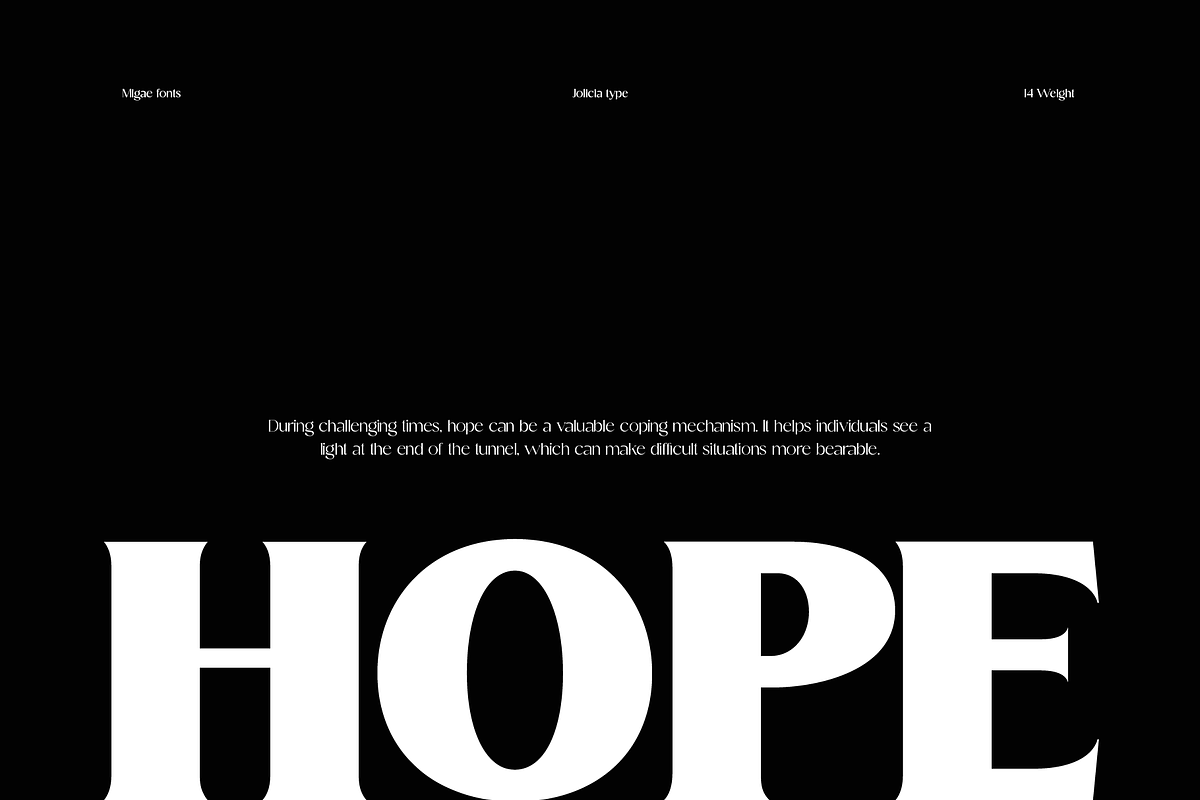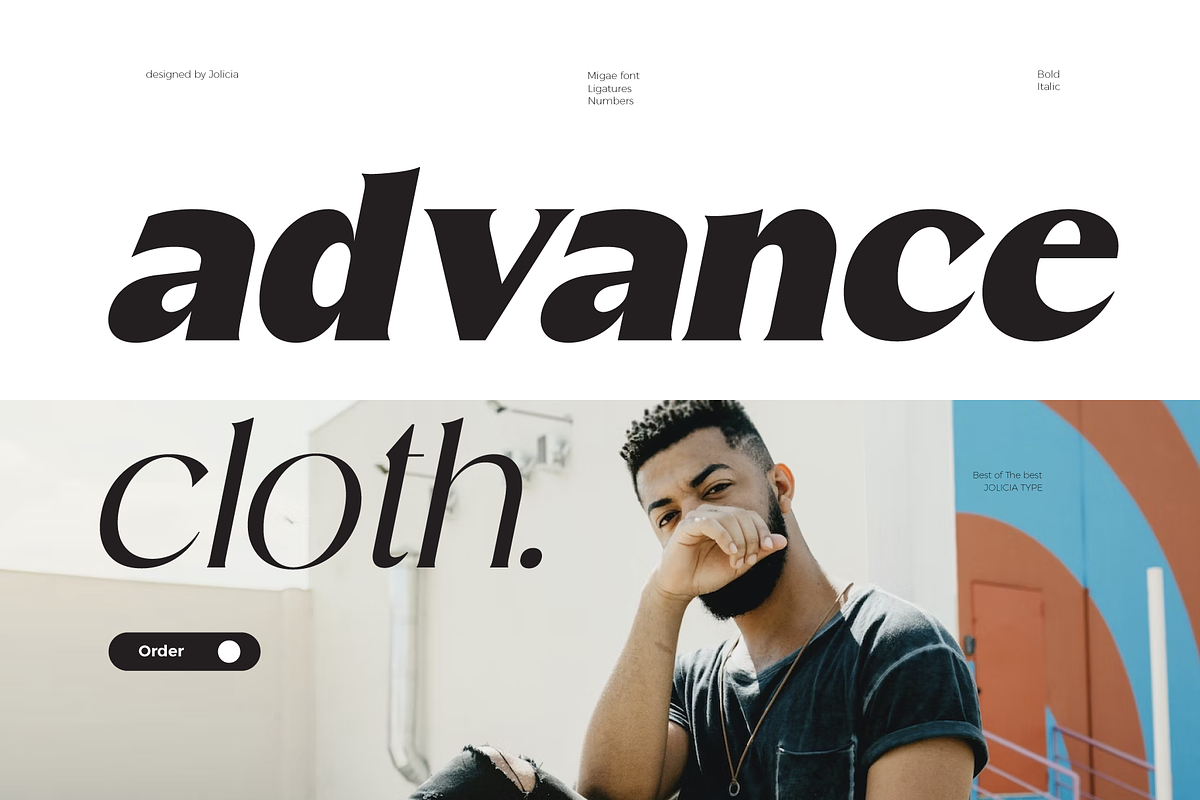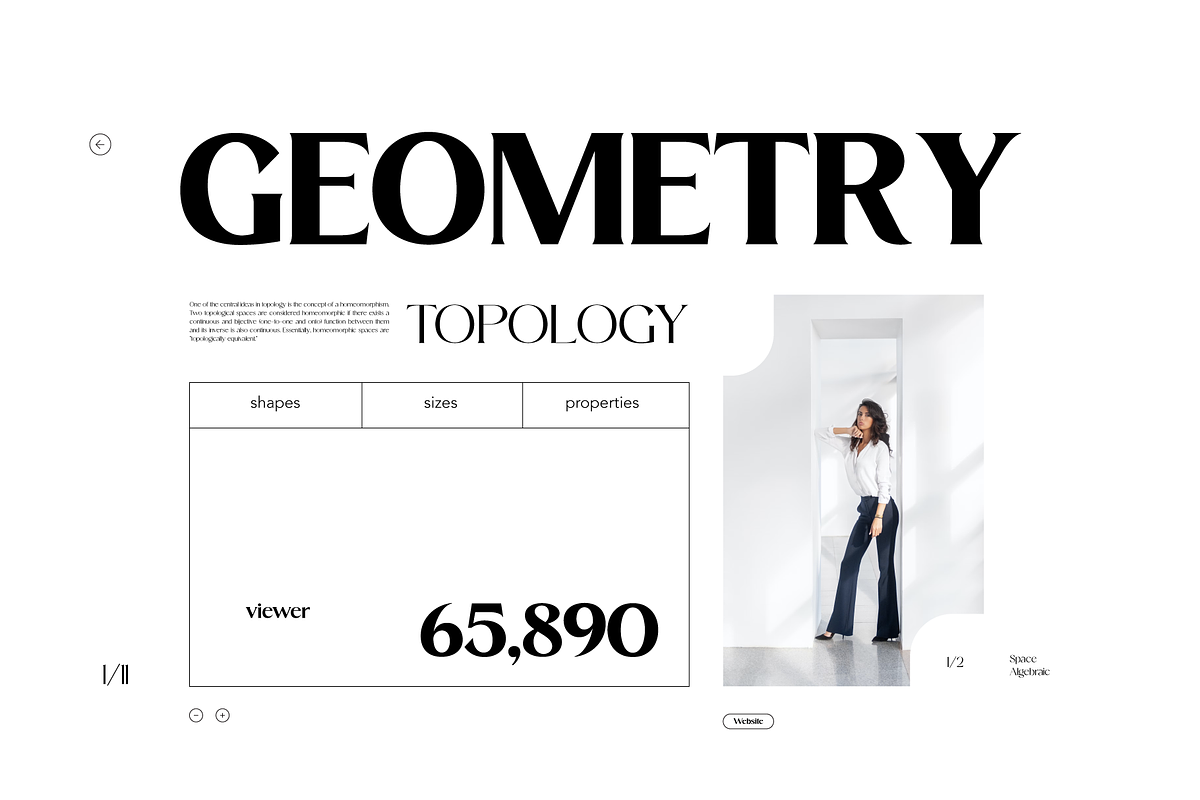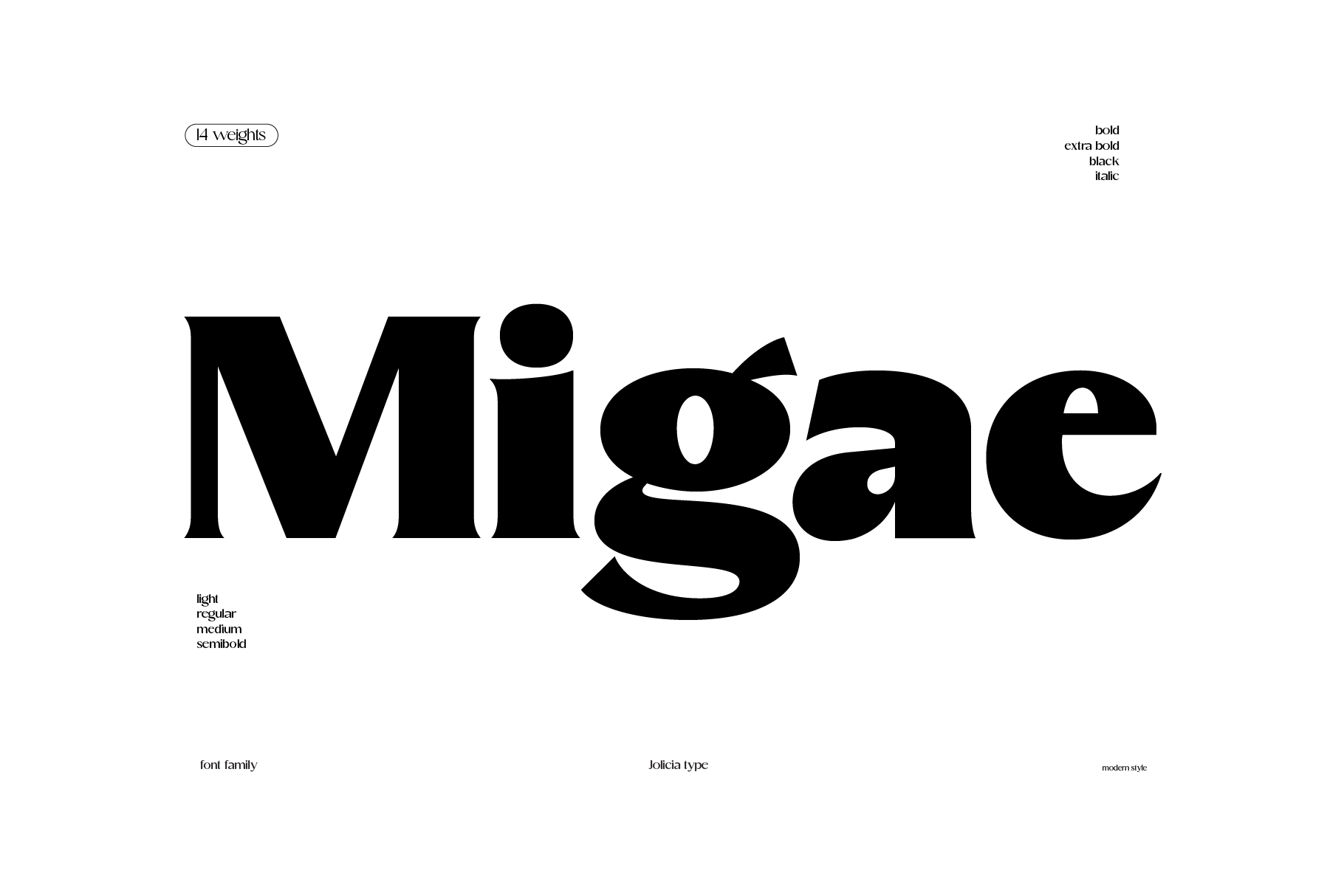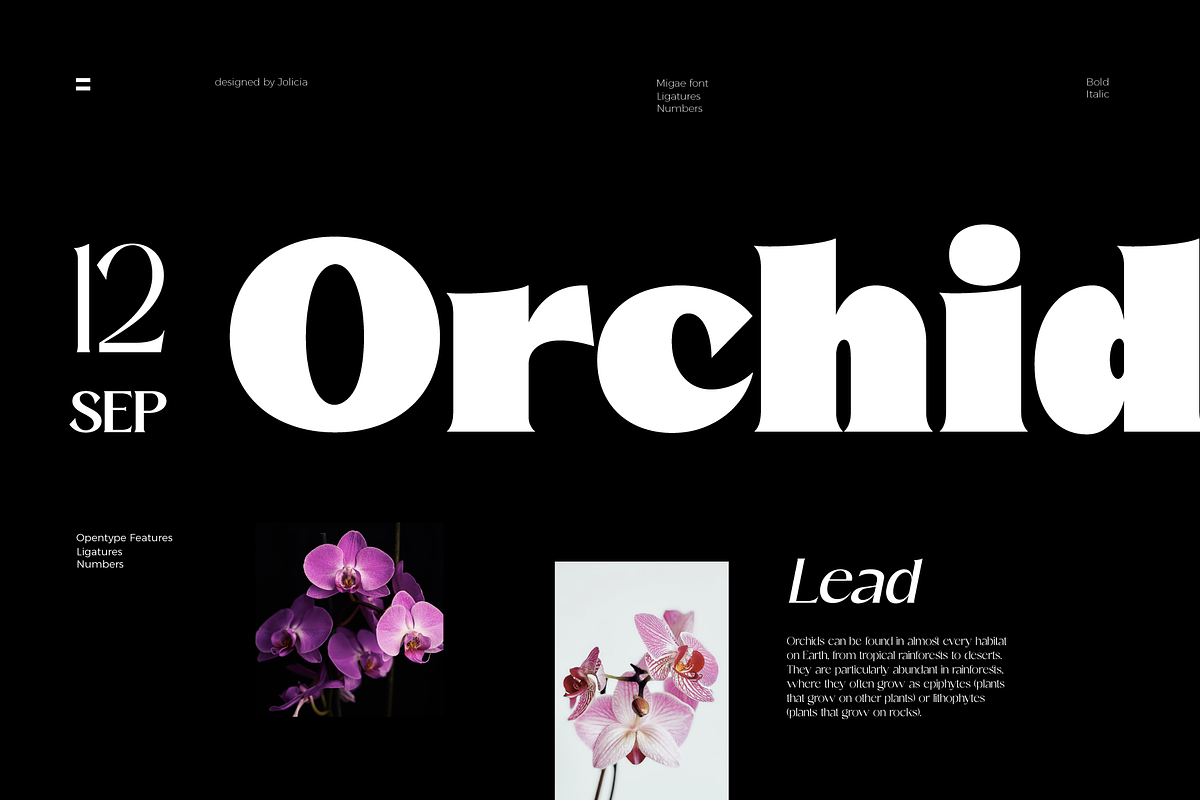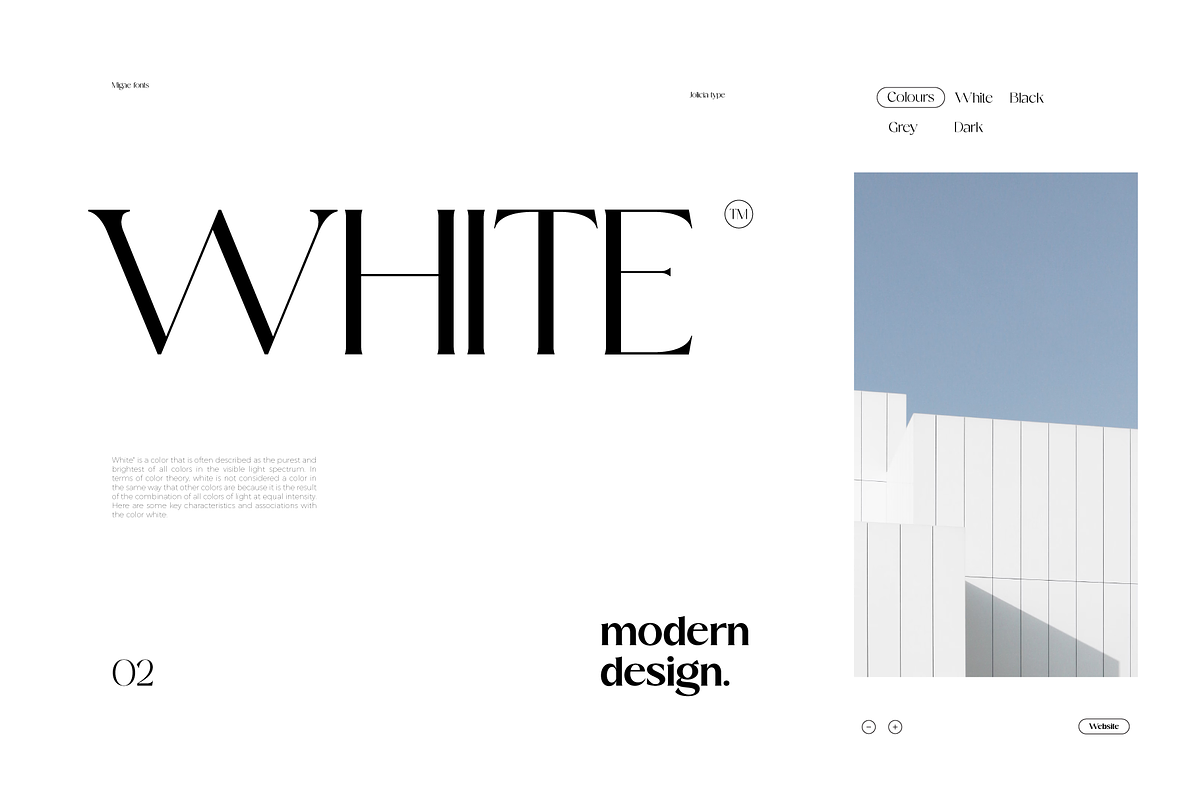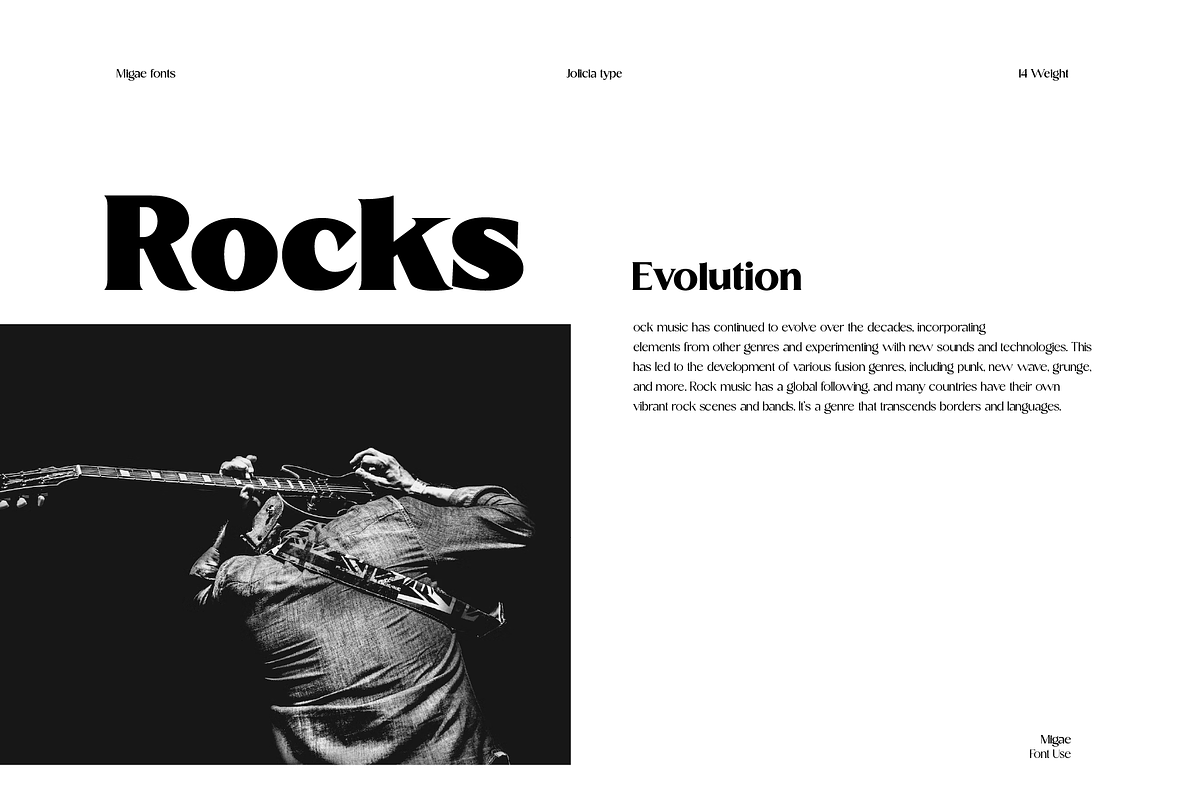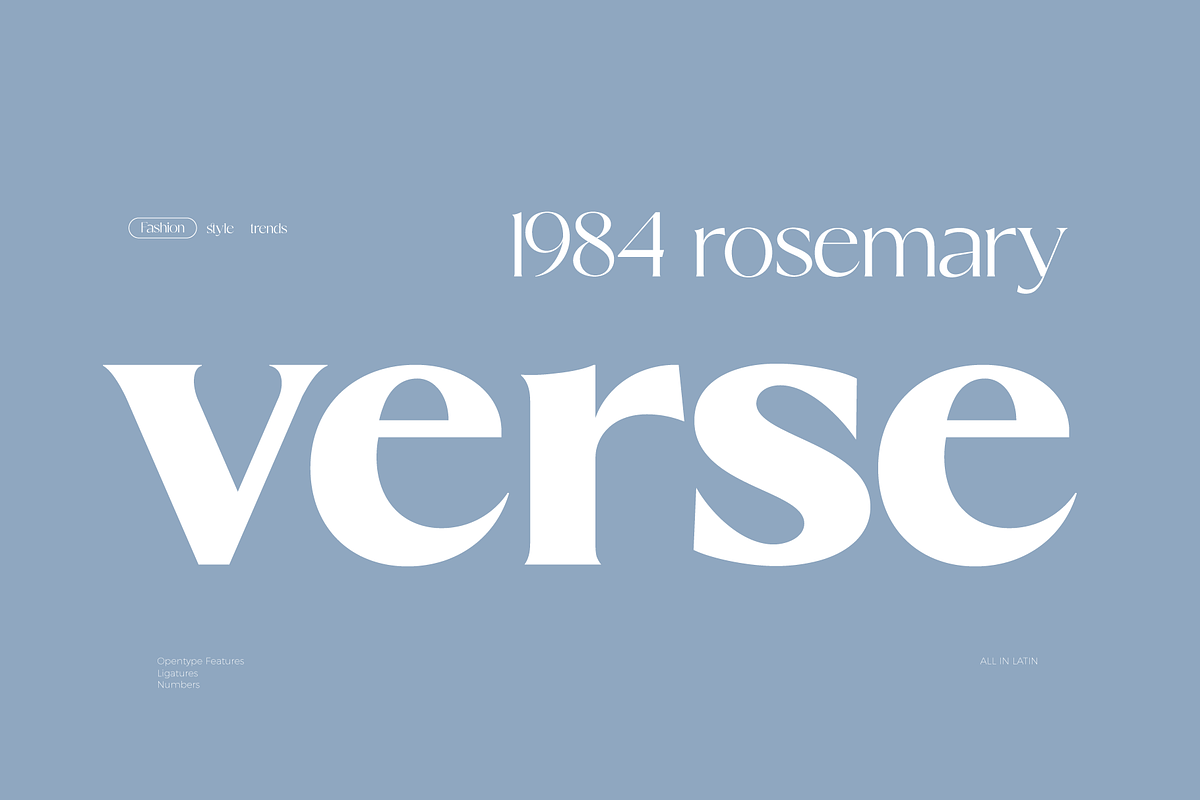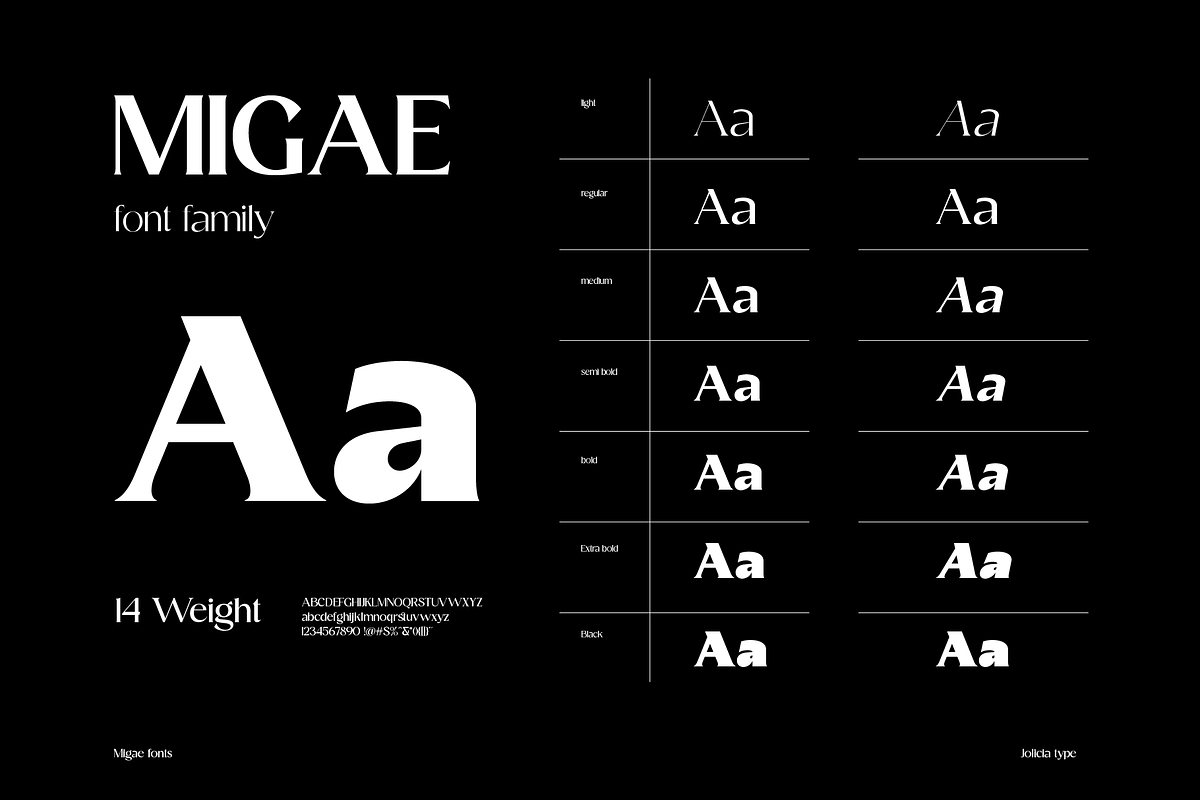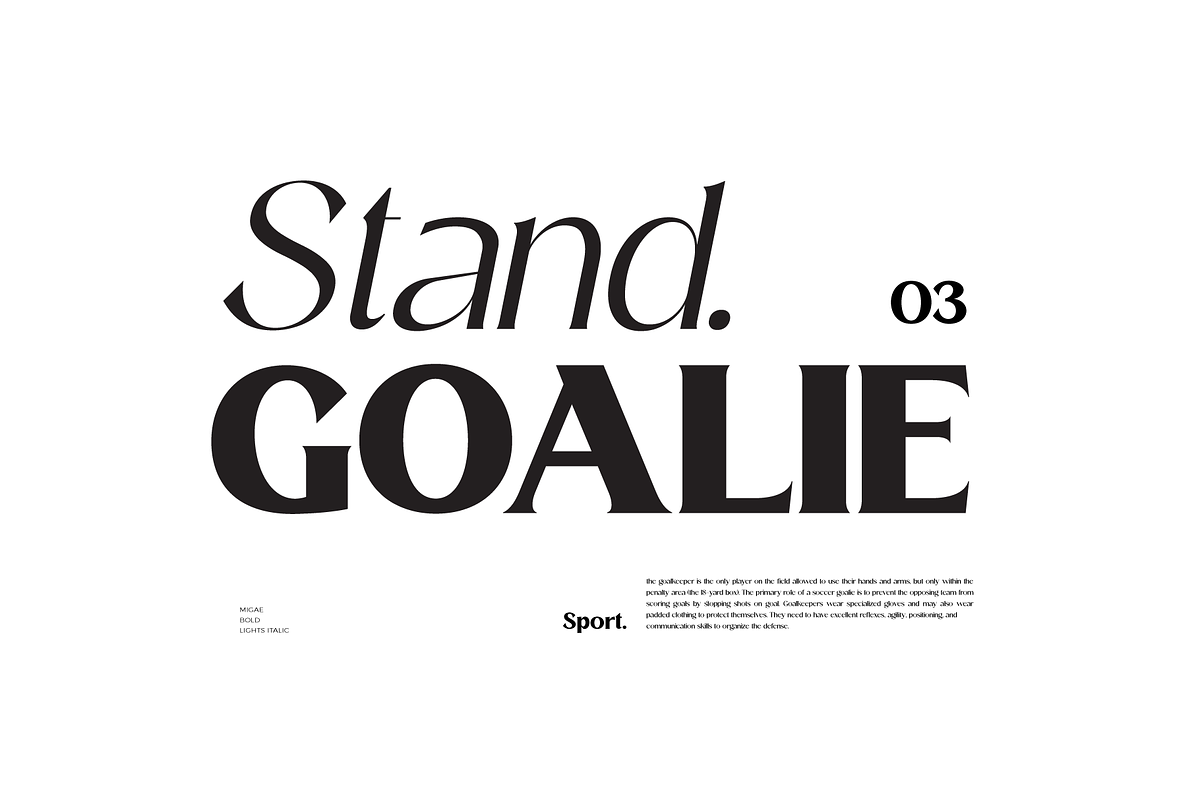
Migae | Display Font
Migae is a versatile and elegant display font designed to captivate and engage audiences across a wide range of design applications. With 14 distinct weight variants spanning from delicate Light to commanding Black, and complemented by a refined set of italics, Migae offers a harmonious balance of strength and elegance to fulfill your typographic needs.
- 14 Weight Variants: Migae's extensive weight range, including Light, Regular, Medium, Semi-Bold, Bold, Extra Bold, and Black variants, allows you to choose the perfect weight for your design, whether it's a subtle headline or a bold statement.
- Italics: In addition to its standard upright styles, Migae boasts a comprehensive set of italics that adds versatility to your typography, conveying an air of sophistication and style.
- Strong to Elegant Styles: Migae's design philosophy seamlessly combines strength and elegance. Its strong weights provide a bold and impactful presence, while the lighter weights exude an effortless elegance, making it suitable for a wide array of creative projects.
- Modern Aesthetic: Migae's clean, contemporary lines and carefully crafted details make it an ideal choice for modern graphic and web design, editorial layouts, branding, and advertising.
- Legibility: Migae prioritizes legibility across all weights and styles, ensuring that your messages are communicated effectively, regardless of the chosen variant.
- Versatile Applications: From branding and packaging to posters, editorial design, and web headings, Migae adapts to various design contexts, making it a versatile choice for graphic designers, typographers, and creative professionals.
Design Inspiration: Migae draws inspiration from the harmony of nature, where strength and elegance coexist. Its name, derived from the Korean word "미래" (miraee), meaning "future," reflects its forward-thinking design approach that is equally rooted in tradition and innovation.
Ideal Usage: Migae is an ideal choice for those seeking a display font that can effortlessly transition between bold and delicate, exuding confidence and refinement in every style. It's perfect for branding, packaging, advertising, editorial layouts, and any design project where typography plays a pivotal role.
Migae is more than just a font; it's a design companion that empowers creatives to achieve a perfect balance between strength and elegance in their visual communications. Explore the world of Migae and let your design projects shine with its captivating charm and versatility.